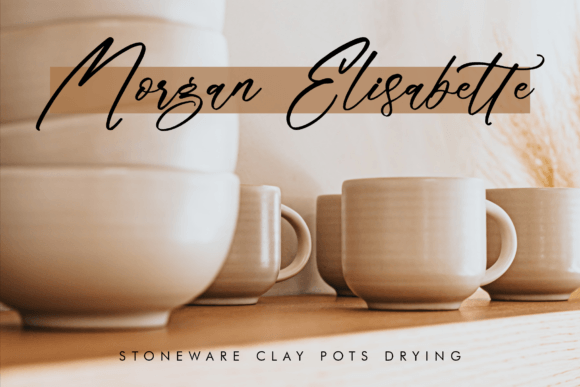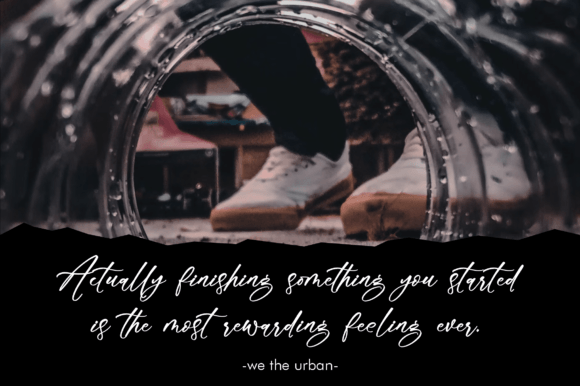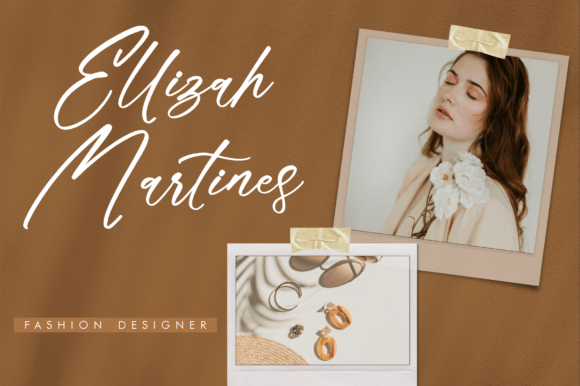
Introduction to Kassoogih Font
Kassoogih is a modern calligraphy script font, suitable for any project such as logos, branding projects, homeware designs, product packaging, mugs, quotes, posters, shopping bags, t-shirts, book covers, name card, invitation cards, greeting cards, label, photography, watermark, special events, and all your other lovely projects that need a beautiful script taste.
Key Features of Kassoogih Font
Why Choose Kassoogih Font?
Kassoogih Font offers exceptional quality and versatility, making it a valuable addition to your design toolkit. Whether you’re creating for personal projects or commercial use, Kassoogih Font delivers professional results.